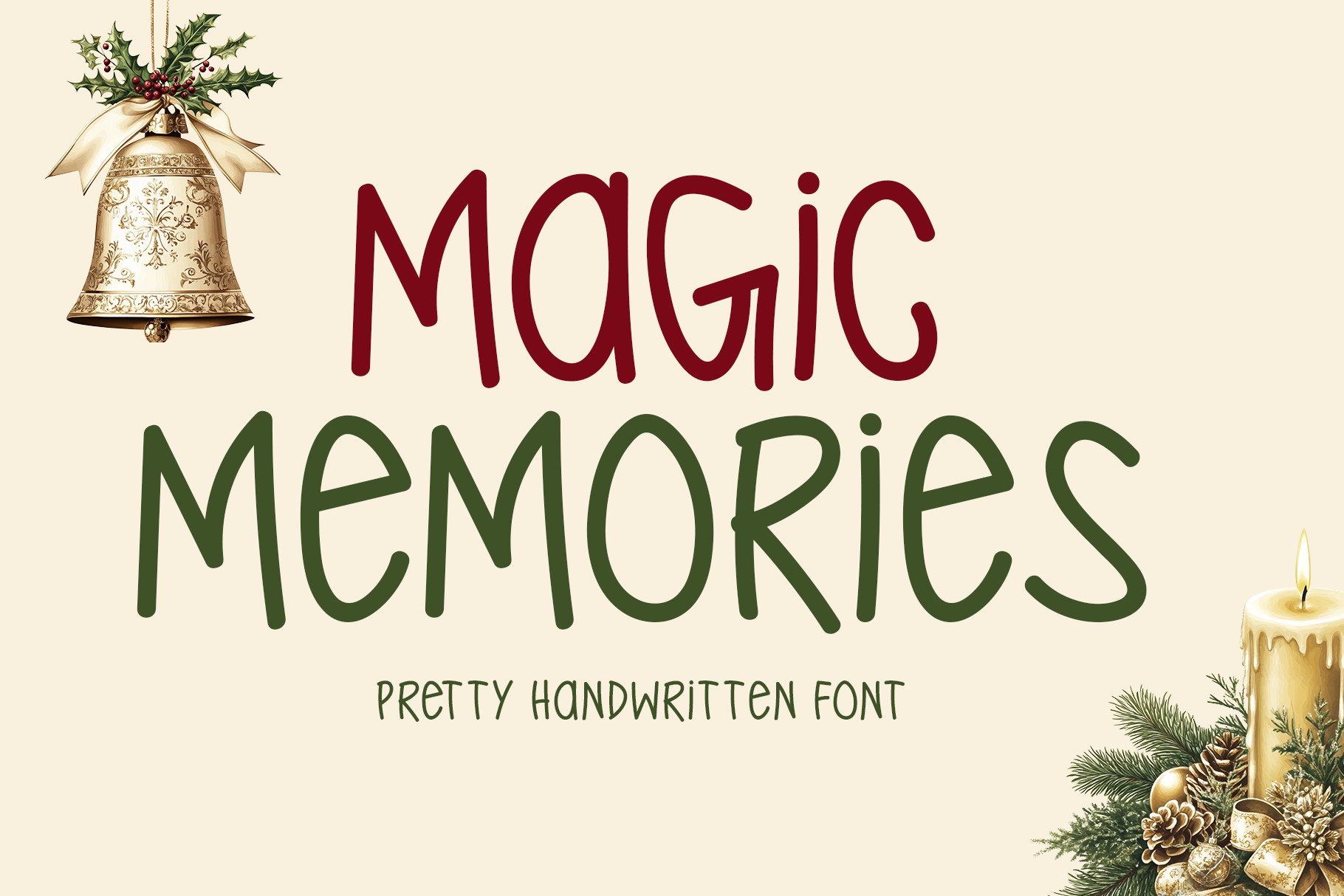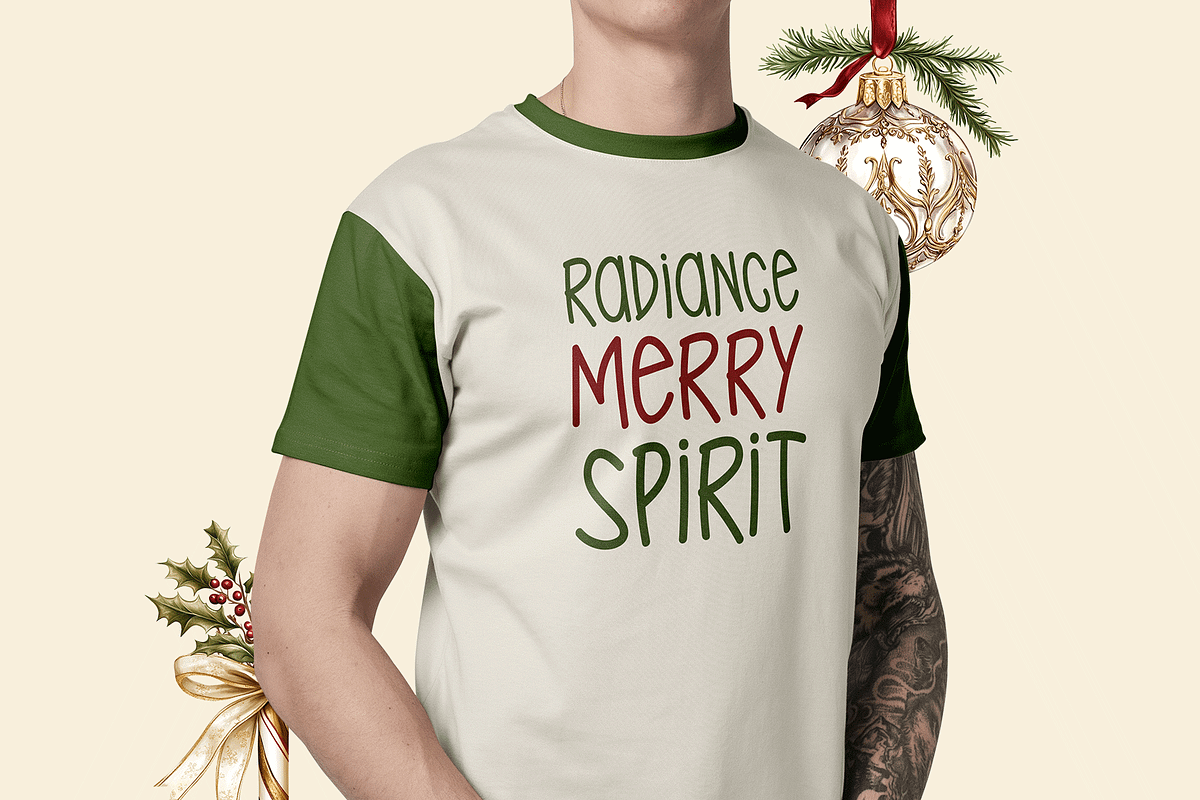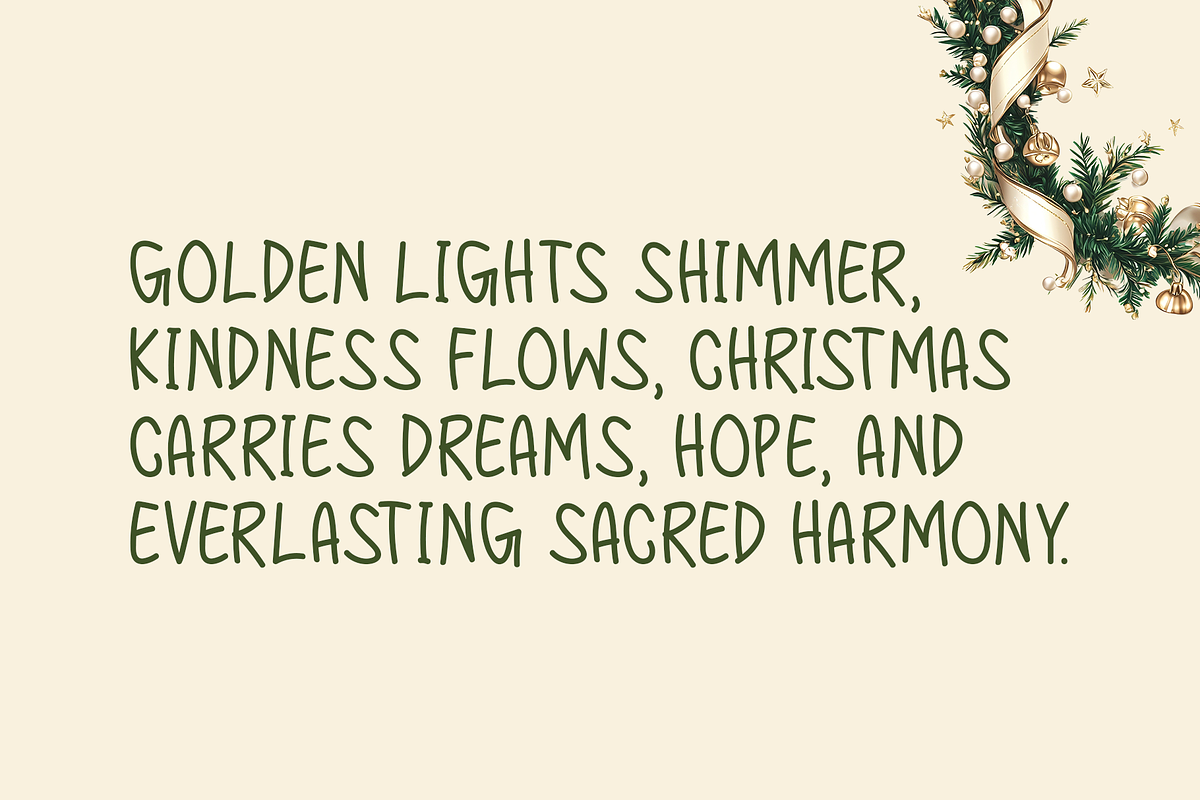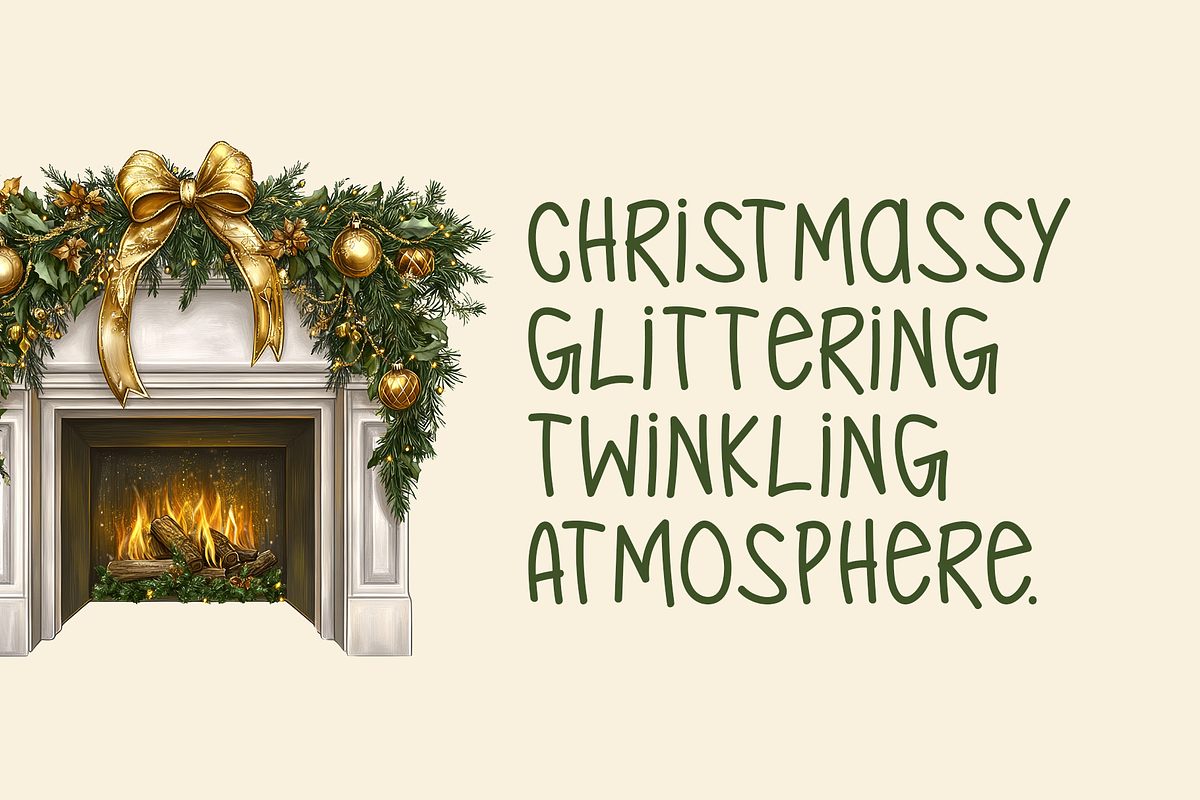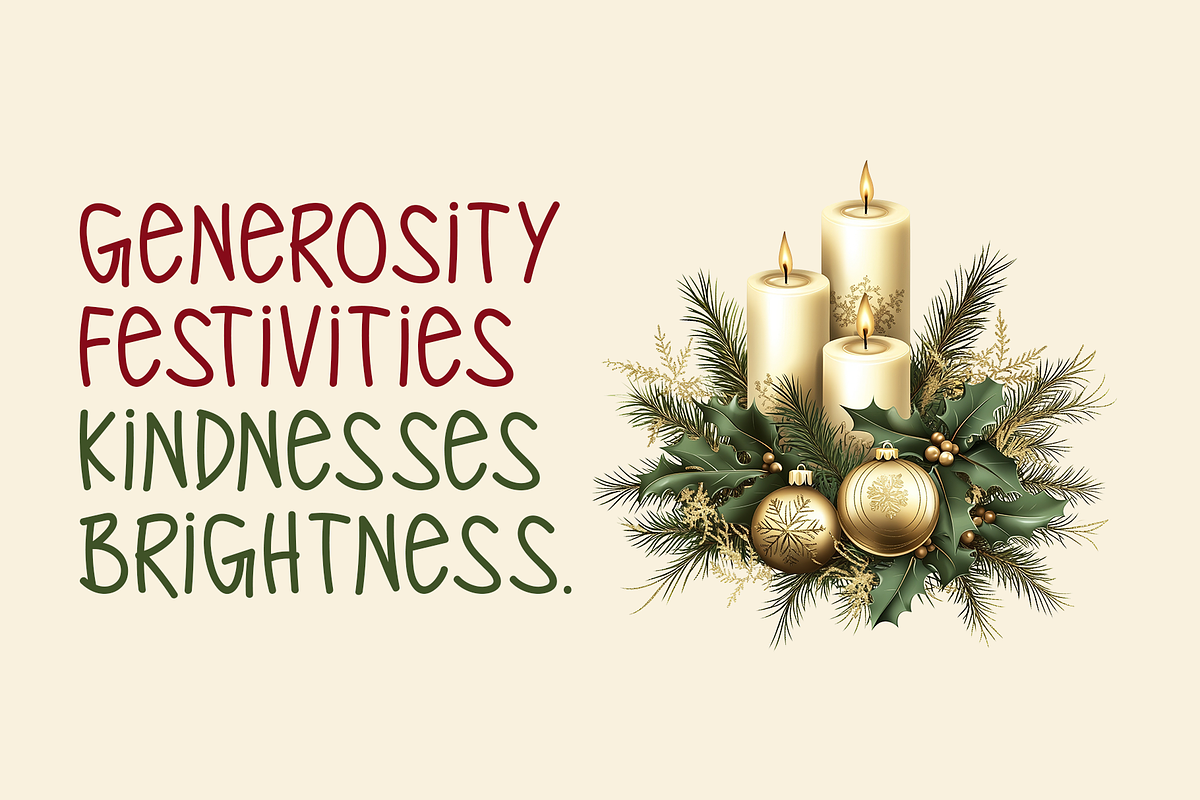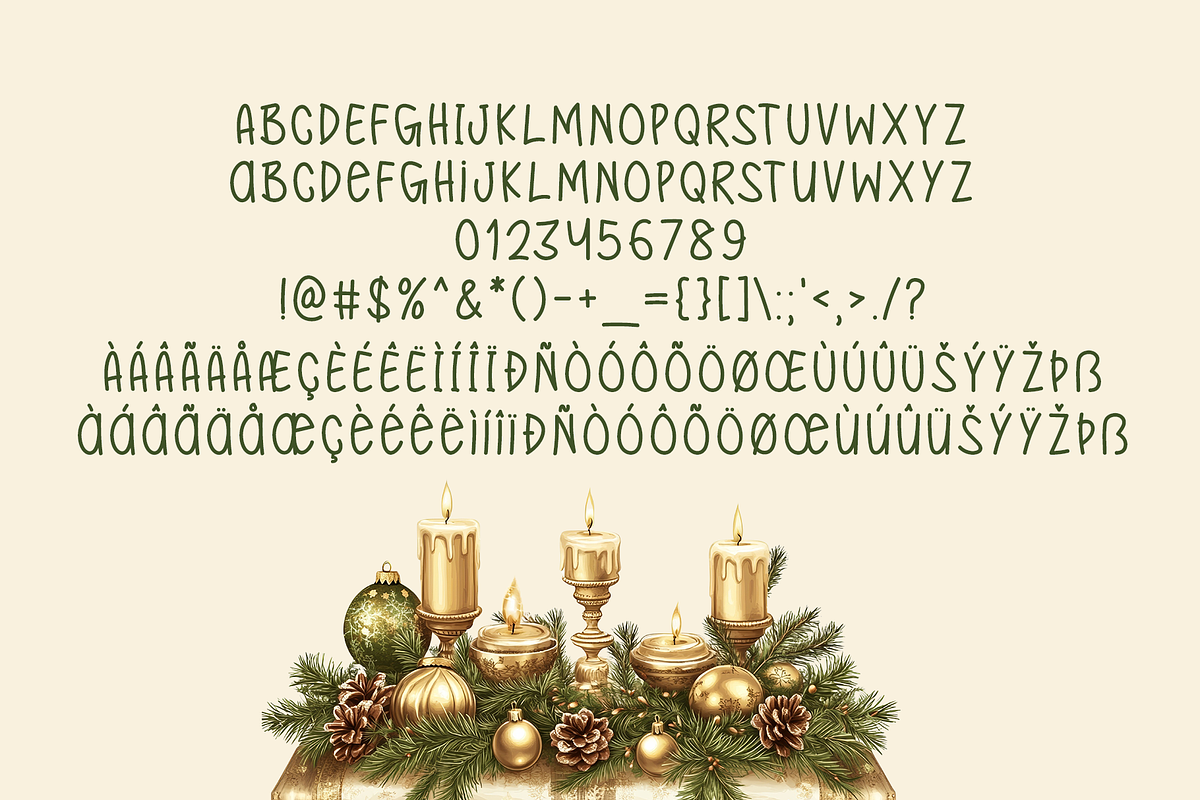
Magic Memories Typeface
Introducing Magic Memories!
Magic Memories is a pretty handwritten typeface designed to bring warmth, style, and creativity into your designs. Perfect for t-shirts, greeting cards, branding, web headers, flyers, photo frames, and more, it adapts effortlessly to both casual and professional themes. With its handcrafted charm, Magic Memories delivers a joyful, personalized feel that elevates every project.